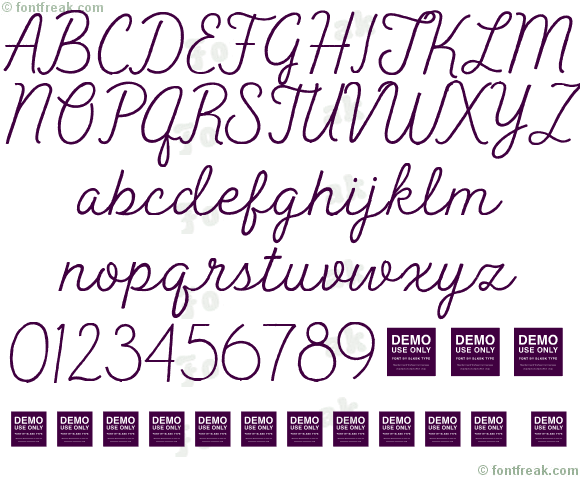
Peak Times
About Peak Times
Peak Times by BLKBK Fonts is a stunning display font that effortlessly combines elegance with a modern twist. This script-style font features flowing, cursive letters that evoke a sense of sophistication and creativity. The strokes exhibit a gentle contrast, transitioning smoothly from thick to thin, which adds an organic feel to its overall appearance. The spacing is well-balanced, making the font easy to read while maintaining its artistic flair.
Ideal for a variety of applications, Peak Times shines in wedding invitations, where its graceful curves can set a romantic tone. It also works beautifully on movie posters, giving a cinematic quality that captures attention. Restaurant menus benefit from its stylish presentation, enhancing the dining experience with a touch of class. Additionally, content creators can use this font for social media graphics or promotional materials to elevate their brand identity.
The target audience for Peak Times includes graphic designers seeking to add an elegant touch to their projects, small business owners looking to enhance their marketing materials, and content creators who want to stand out in a crowded digital landscape. Its versatility and charm make it a great choice for anyone looking to convey professionalism and creativity.
What truly sets Peak Times apart is its unique ability to blend functionality with artistic expression. As a freeware font, it allows users to access high-quality typography without the constraints of licensing fees. This makes the Peak Times font free download an attractive option for those who wish to enhance their designs with an elegant script that speaks to both tradition and modernity. With its captivating style and practical applications, Peak Times is sure to leave a lasting impression.